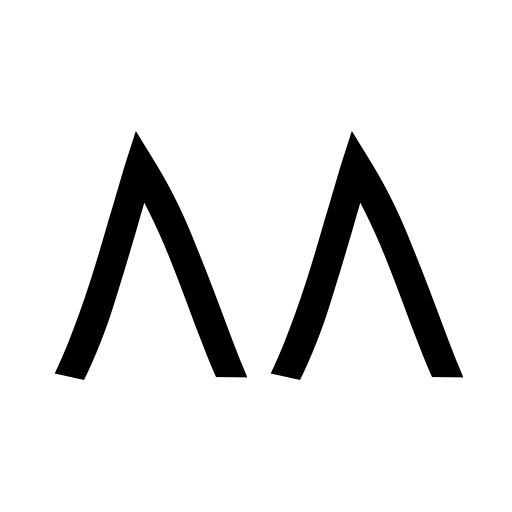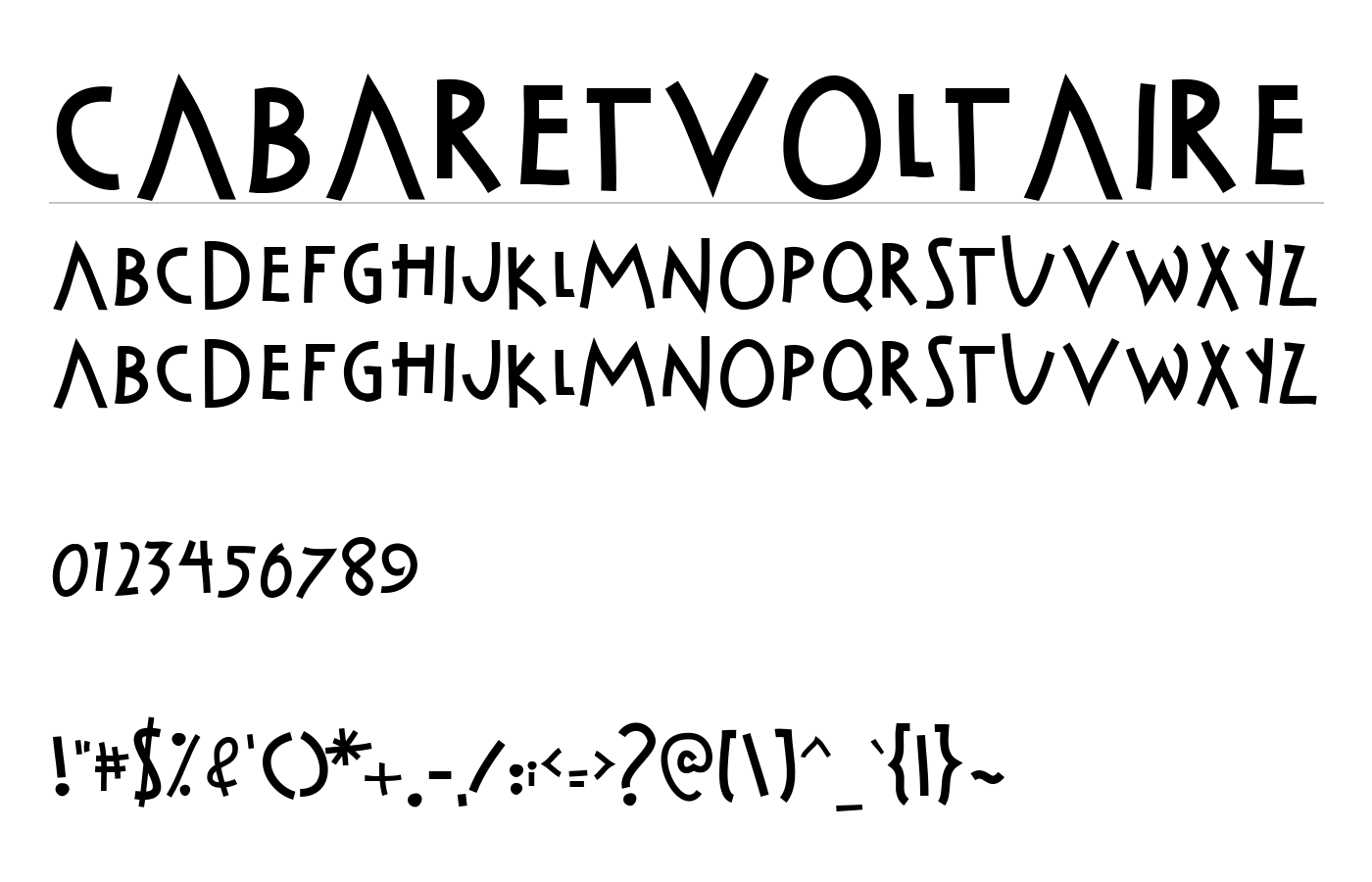
CabaretVoltaire is a playful and quirky sans serif font featuring a hand-crafted, slightly irregular style that adds a unique and artistic flair. Its slender, upright letterforms with varied angles give it an energetic and informal personality, making it perfect for creative projects, posters, and branding that seeks a fun, unconventional look. This font works well for headlines and display uses where a distinctive, lively vibe is desired.
CabaretVoltaire Font